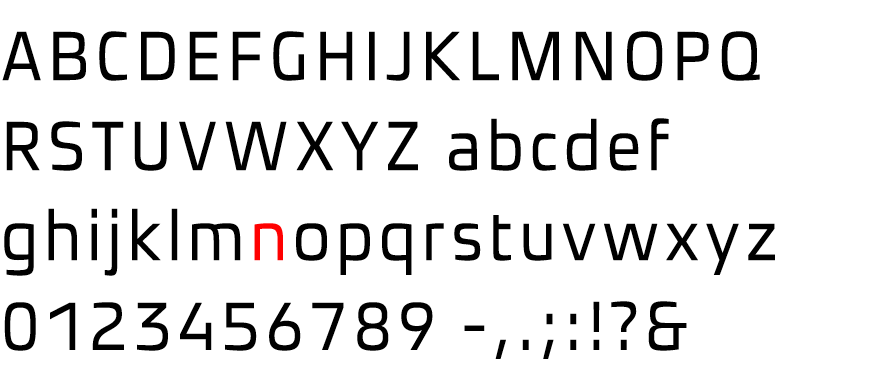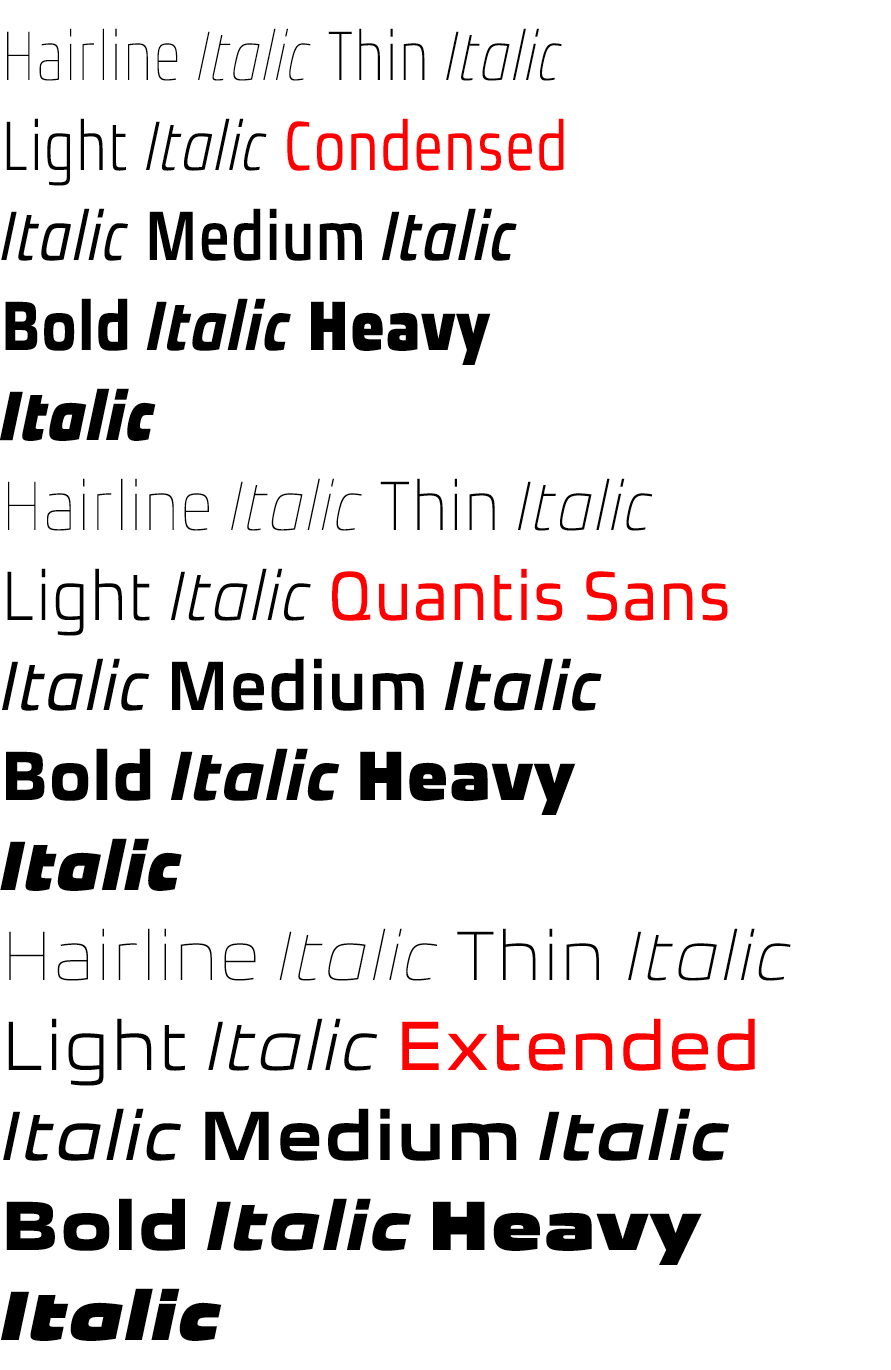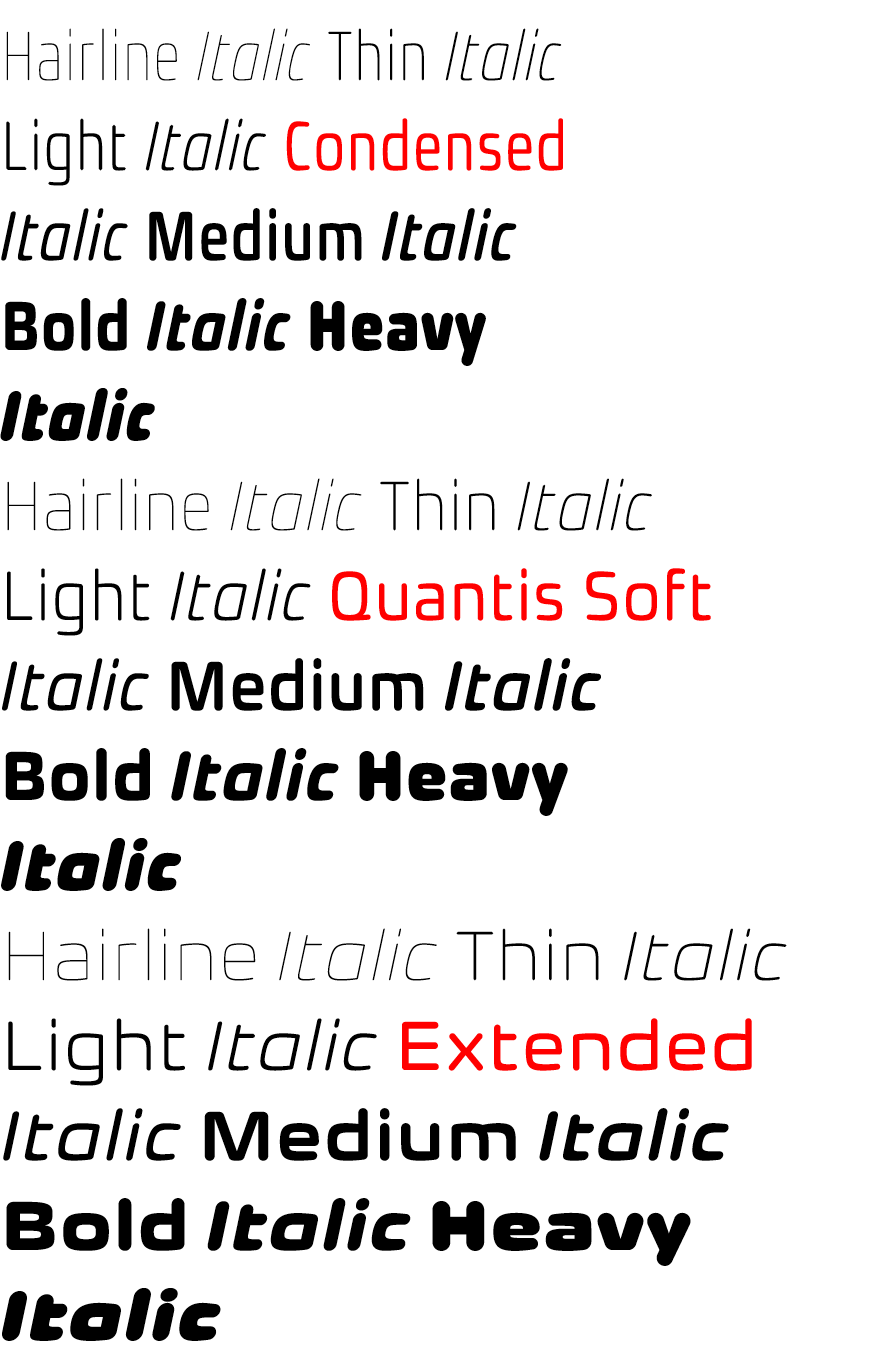
Quantis
Interrelated font system with unified basic form.
High-quality shapes through carefully designed details.
Inspired by a pronounced horizontal line thickness.
The lack of spurs gives a clear shape.
For readability not-essential horizontal strokes are removed.
Alternate numerals meet the German standard requirements to legible texts.
Matching arrow symbols indicate in eight directions.
The alternate lowercase l is shaped for public signage.
The open form of the alternate capital A is ideal for logos.
Further quality features
Two styles, three widths, seven weights and italics.